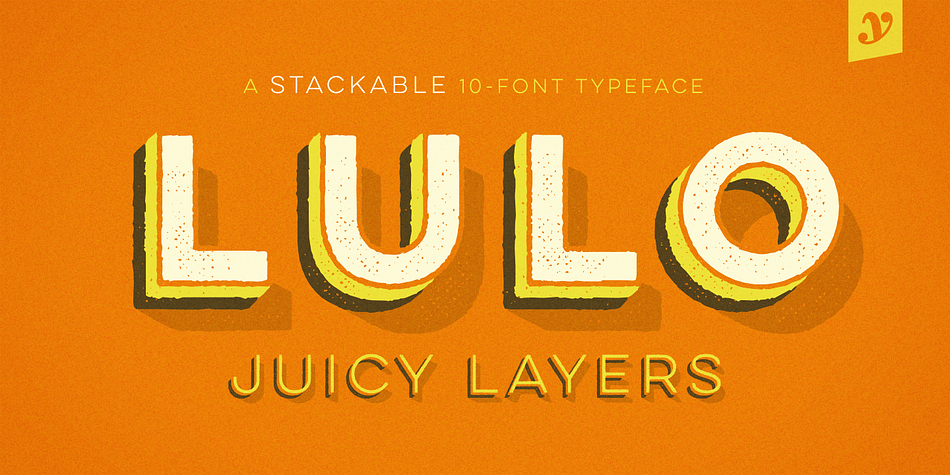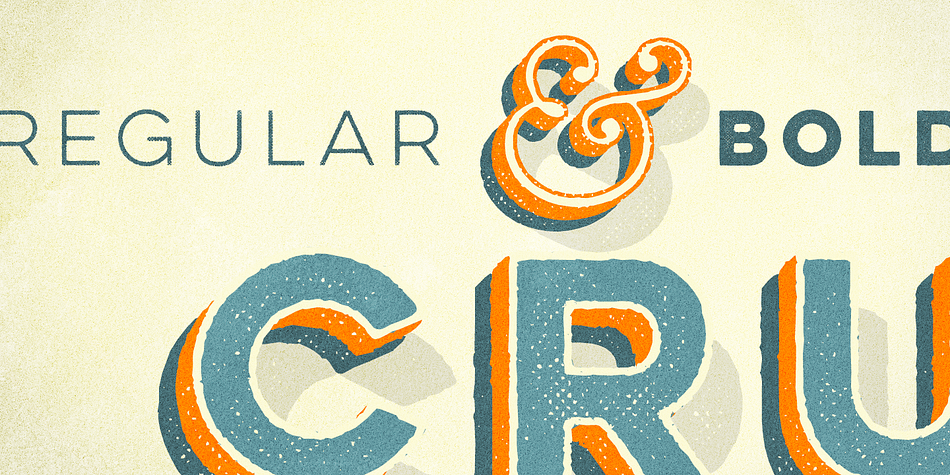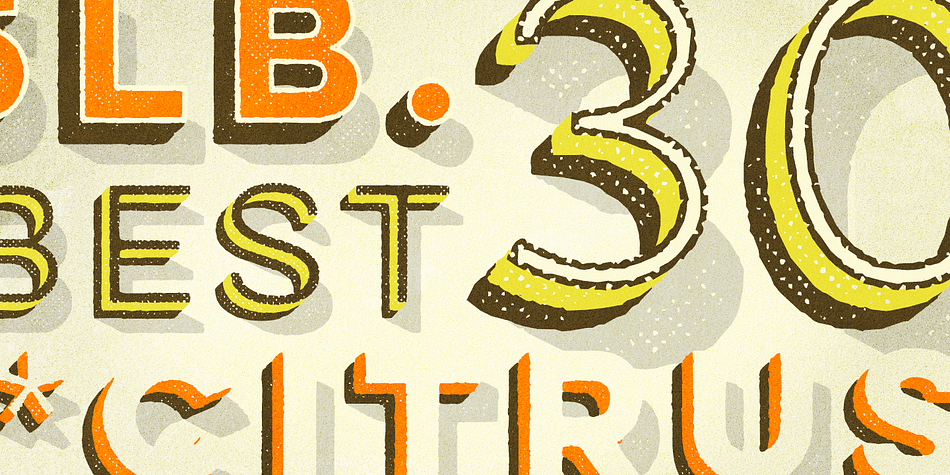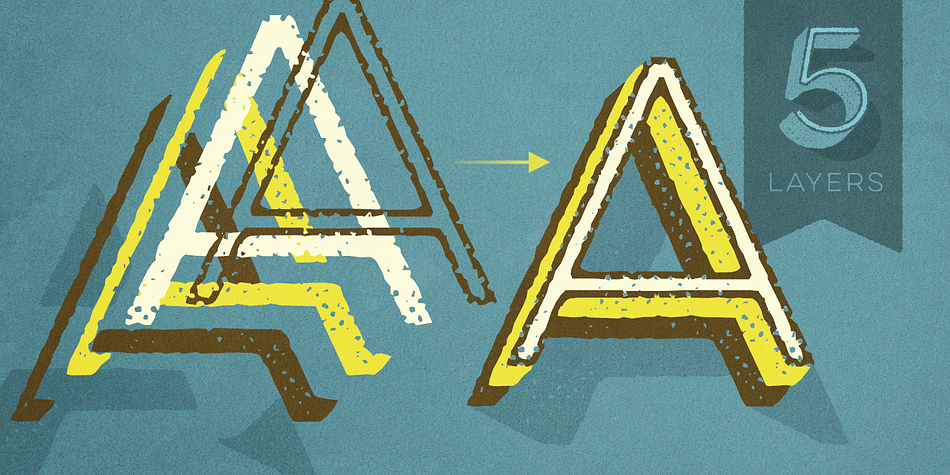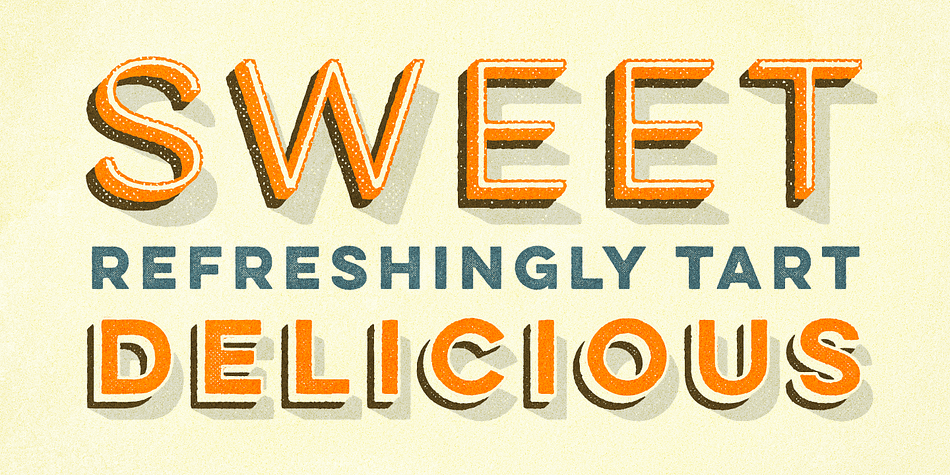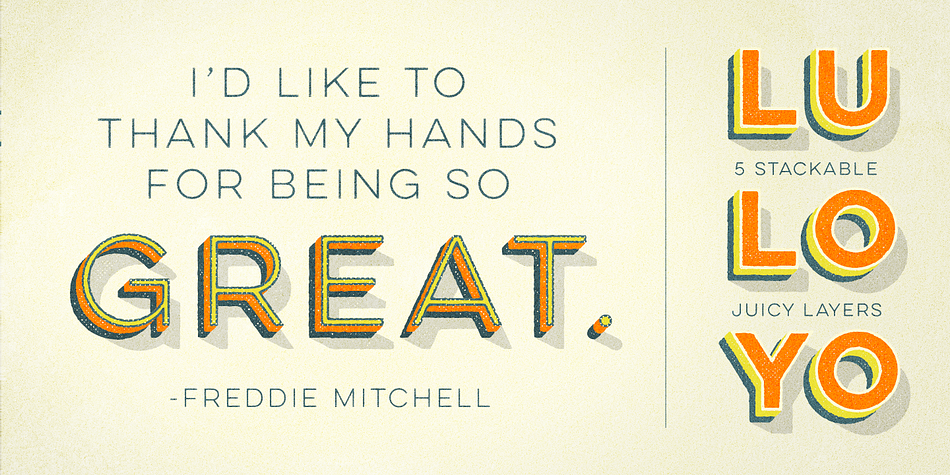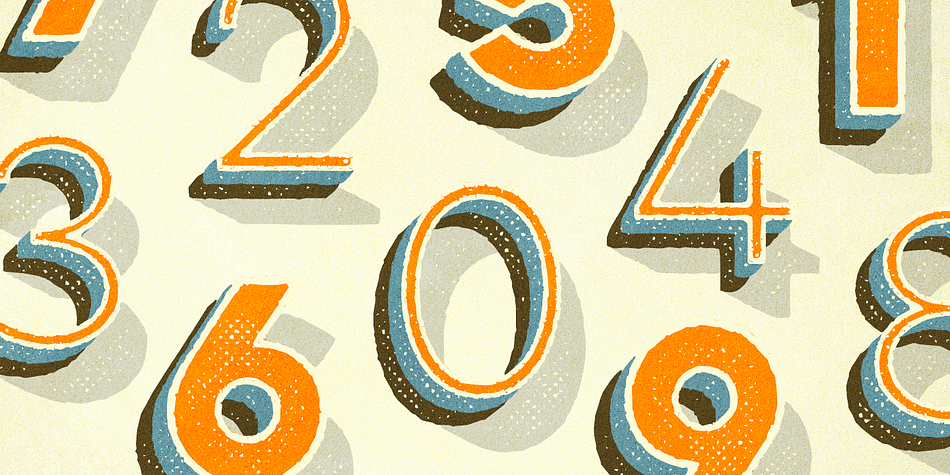
Lulo is a grunge and display sans font family. This typeface has ten styles and was published by Yellow Design Studio.
Lulo from Yellow Design Studio is a textured, retro, amazingly 3-dimensional font family. Endless effects can be created by adding different colors to each of the 5 stackable layers. Lulo is all-caps, and has subtle texture variation between the upper and lowercase characters so duplicate distressing in double-letters can be avoided. Other features include regular and bold weights, high-resolution texture that looks great even at large sizes, and extensive language support.